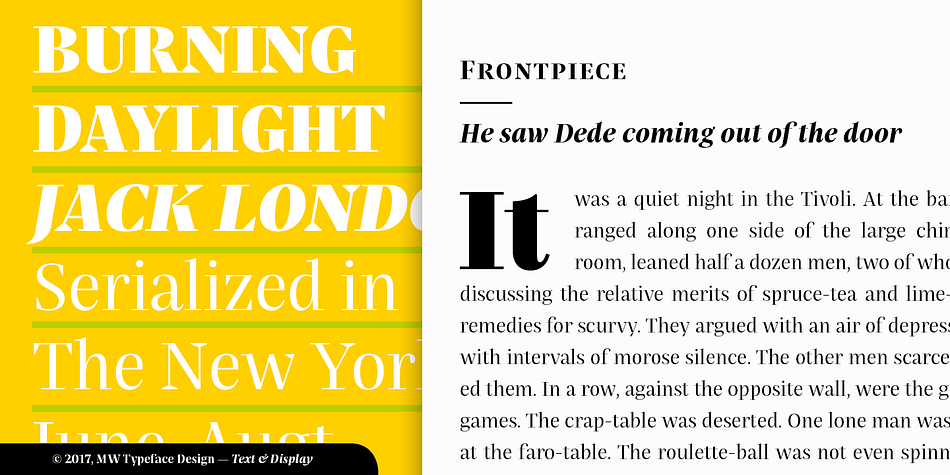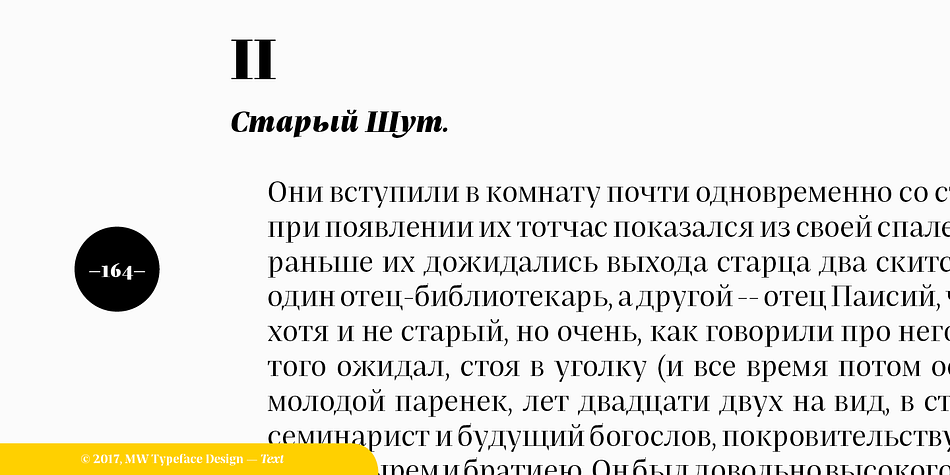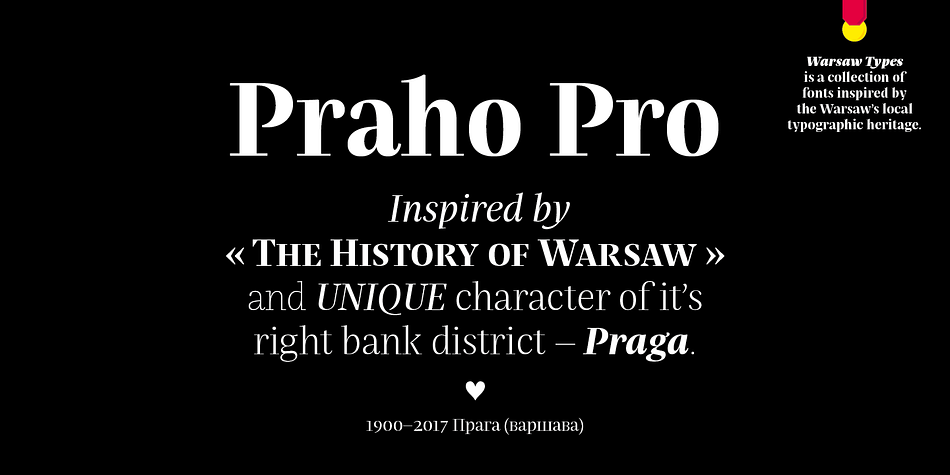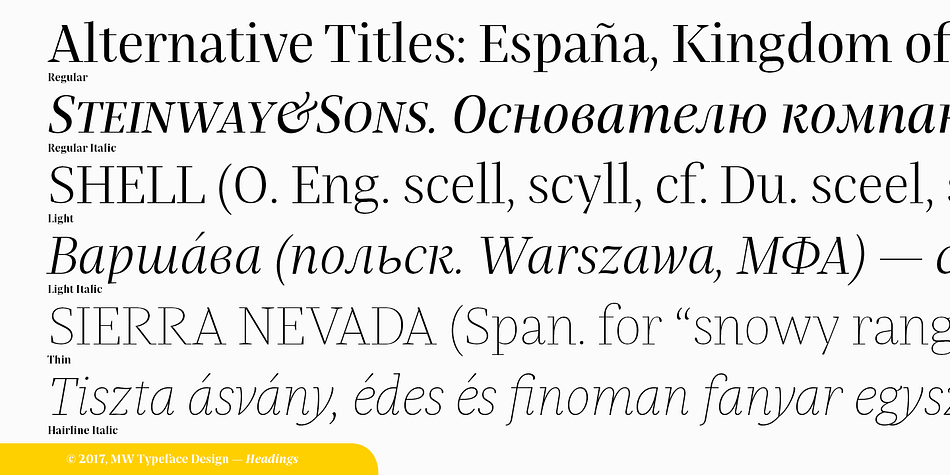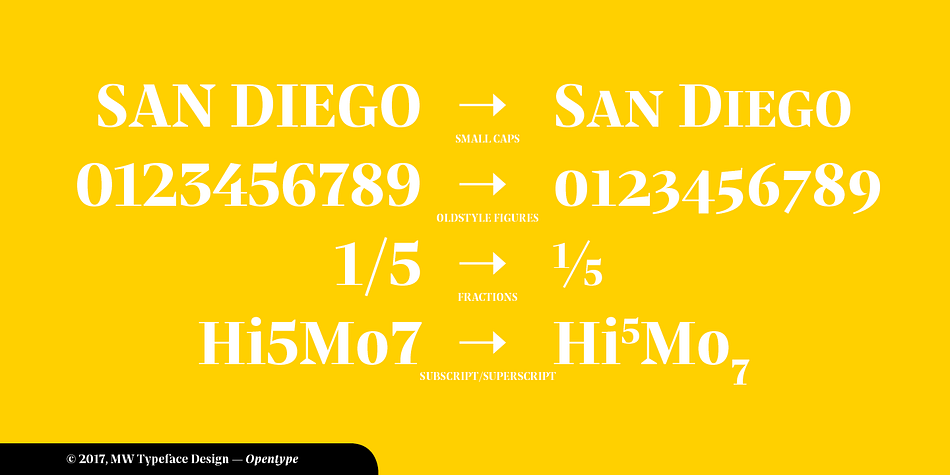
Designed by Maciej Włoczewski, Praho Pro is a serif font family. This typeface has eighteen styles and was published by Maciej Włoczewski.
Praho Pro is a part of Warsaw Types – a project based on Warsaw’s local typographic heritage. The project, presented at the Museum of Praga, is a collaboration of 12 young Polish typographers.
Praho Pro is a multilingual family inspired by the unique, historical character of Praga district of Poland’s capital - Warsaw. High contrast, thin serifs, sharp terminals and large x-height are key features for distinctive headlines. The whole family consist of 9 weights and real italics, small caps, superscript and subscript letters, oldstyle, tabular figures and fractions. It covers latin and cyrillic script. Every weight has almost 2000 glyphs.